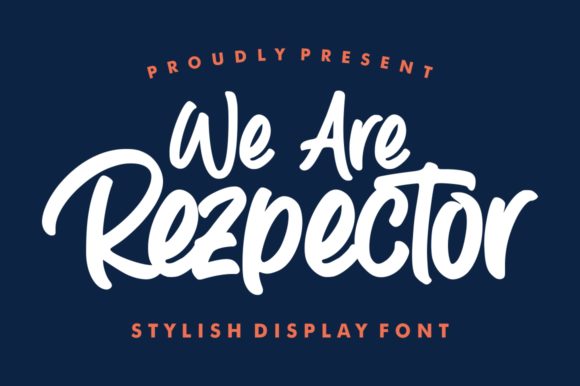
Introducing **Rezpector**, the bold and captivating display font that will add an instant touch of sophistication to your outdoor signage.
Crafted by the renowned Garisman Studio, Rezpector exudes a fresh and familiar allure that will make your designs stand out from the crowd. Its elegant curves and sharp angles create a visually stunning contrast that commands attention from afar.
Whether you're creating eye-catching billboards, sleek posters, or impactful banners, Rezpector is the perfect choice for making a powerful statement. Its bold presence will cut through the clutter, ensuring that your message reaches its target audience with maximum impact.
With Rezpector, you can:
* **Captivate your audience:** The font's confident charm will draw eyes towards your signage, leaving a lasting impression.
* **Make a bold statement:** Its striking contrast and sharp lines exude strength and authority.
* **Stand out from the competition:** Rezpector's unique and eye-catching design will give your signage an edge.
* **Convey your message with clarity:** The font's crisp and legible style ensures that your text is easy to read and understand.